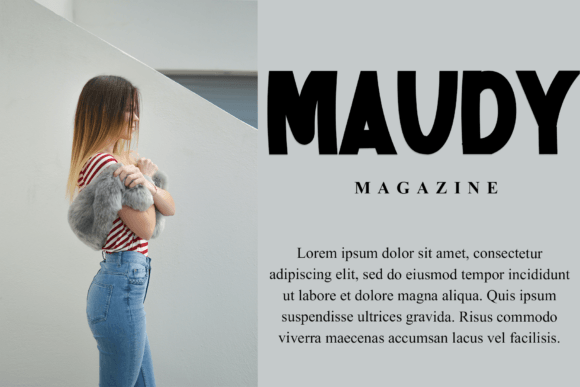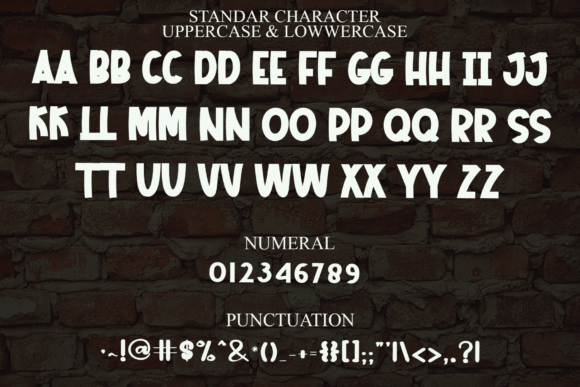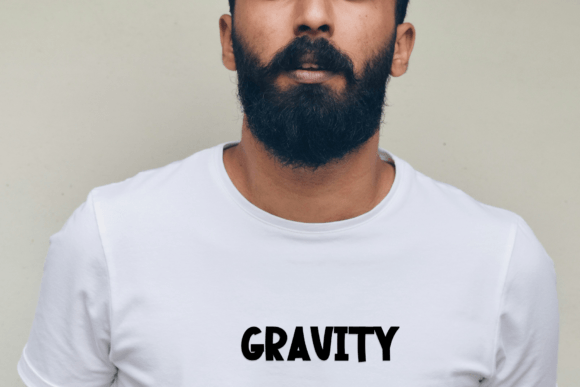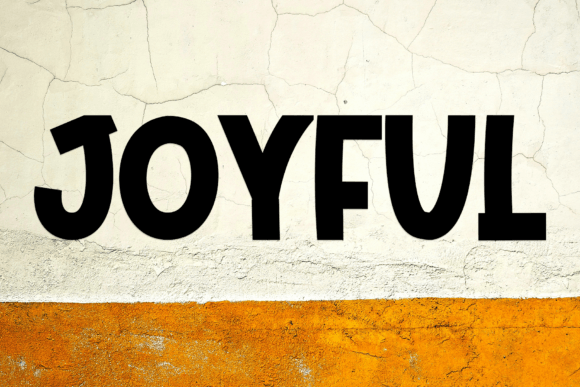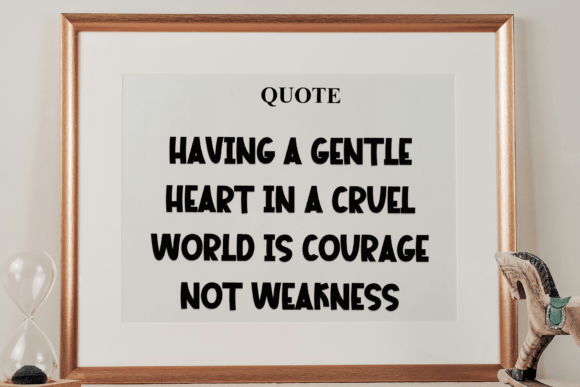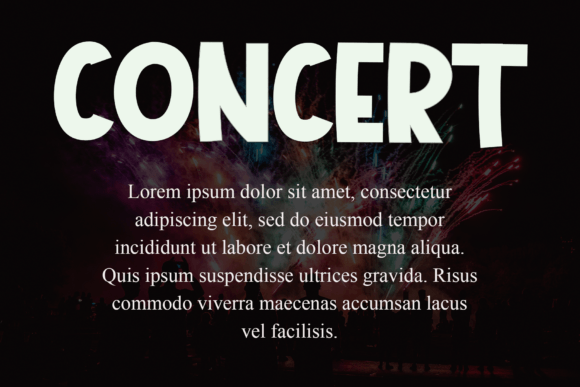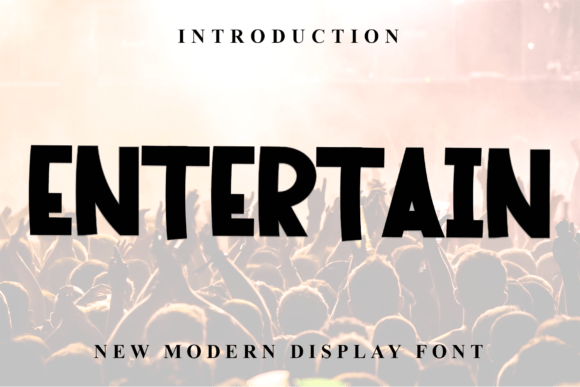
Introducing Entertain Font: Elevate Your Designs with Elegance and Sophistication
In the world of design, fonts play a crucial role in conveying the tone and personality of a brand or creative project. If you’re a designer, crafty DIY enthusiast, or social media influencer looking to elevate your visual game, you’re in luck! Entertain Font is a stunning display font that exudes class, elegance, and modernity, making it perfect for a wide range of applications.
What Makes Entertain Font So Special?
Entertain Font boasts a refined and sophisticated design that is sure to turn heads. Its elegant and modern aesthetic makes it an ideal choice for:
• Logos and branding: Create a lasting impression with a font that screams luxury and refinement.
• Invitations and stationery: Add a touch of sophistication to your paper goods and make them truly unforgettable.
• Wedding designs: Make your special day even more memorable with a font that embodies romance and elegance.
• Social media posts: Elevate your online presence and make your content stand out from the crowd.
The Power of PUA Encoding
One of the standout features of Entertain Font is its PUA (Private Use Area) encoding. But what does this mean, and how does it benefit you?
PUA encoding allows you to access a vast array of glyphs and ligatures with ease. Glyphs are special characters that can add an extra layer of creativity to your designs, while ligatures are combinations of letters that merge together to create a unique visual effect.
With PUA encoding, you can:
• Access a wide range of alternative characters and swashes.
• Create stunning ligatures that add a touch of sophistication to your text.
• Experiment with different combinations to find the perfect look for your design.
Why Choose Entertain Font?
With so many fonts on the market, what sets Entertain Font apart? Here are just a few reasons why designers and crafters love this beautiful display font:
• Versatility: Entertain Font can be used for a wide range of applications, from logos and branding to social media posts and wedding designs.
• Elegance: This font exudes sophistication and refinement, making it perfect for designs that require a touch of luxury.
• Modernity: Entertain Font has a distinctly modern feel that will keep your designs looking fresh and contemporary.
• Easy to use: With PUA encoding, accessing glyphs and ligatures has never been easier.
Tips for Using Entertain Font
To get the most out of Entertain Font, here are a few tips to keep in mind:
• Experiment with different sizes: Entertain Font looks stunning in large sizes, but it can also be used effectively in smaller sizes for body text or captions.
• Play with glyphs and ligatures: Don’t be afraid to get creative with the font’s glyphs and ligatures to add an extra layer of interest to your designs.
• Pair it with other fonts: Entertain Font pairs beautifully with other fonts, so don’t be afraid to experiment with different combinations to find the perfect look for your design.
If you’re looking for a font that embodies elegance, sophistication, and modernity, look no further than Entertain Font. With its PUA encoding and vast array of glyphs and ligatures, this beautiful display font is perfect for designers, crafters, and social media influencers looking to elevate their visual game. So why wait? Download Entertain Font today and start creating stunning designs that will leave a lasting impression!